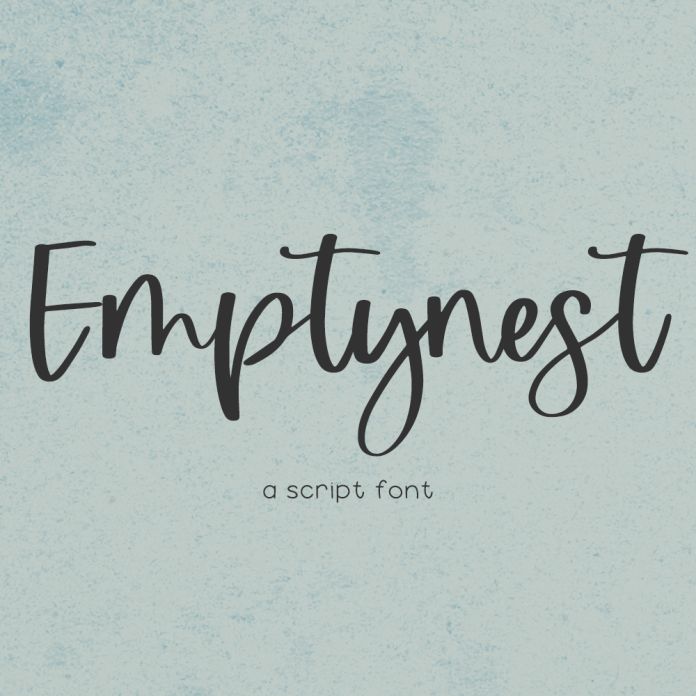
Introducing Emptynest, a modern calligraphy script. Emptynest is cute & bouncy.
- 8 alternate lowercase characters - d, g, h, j, k, l, r, y
- 1 ligature - tt